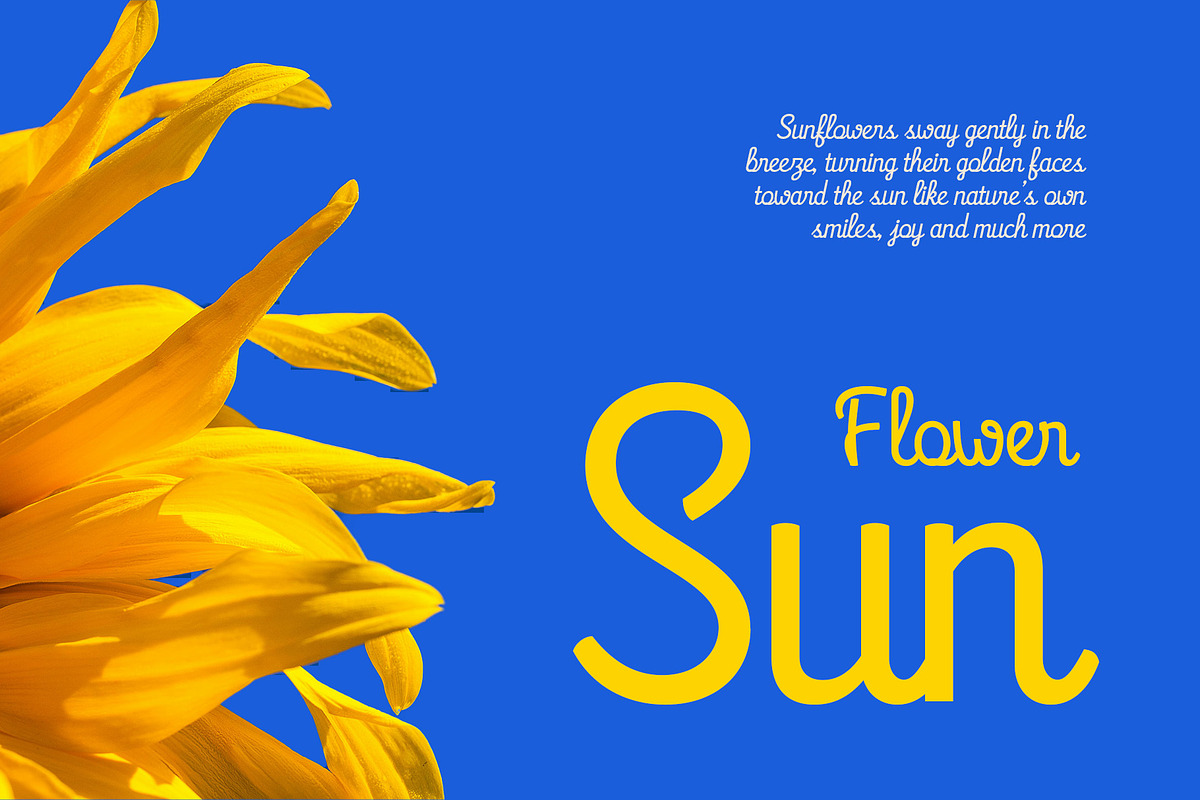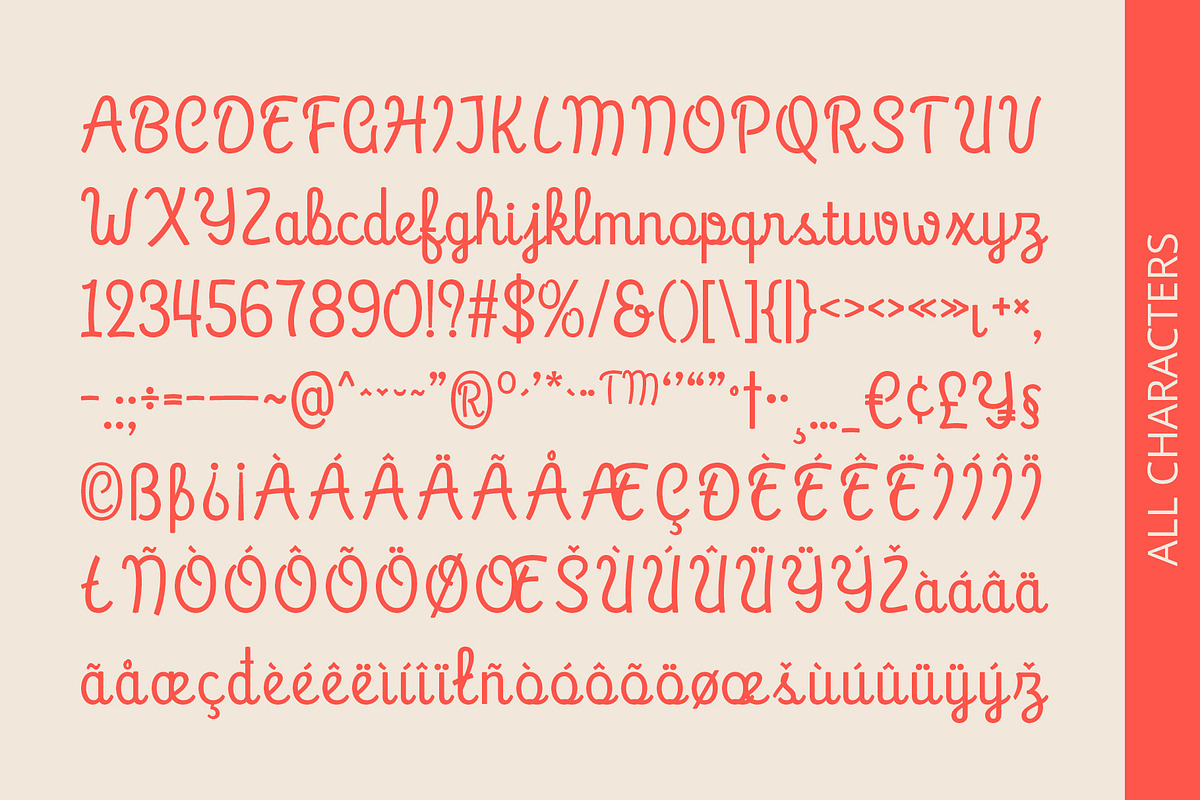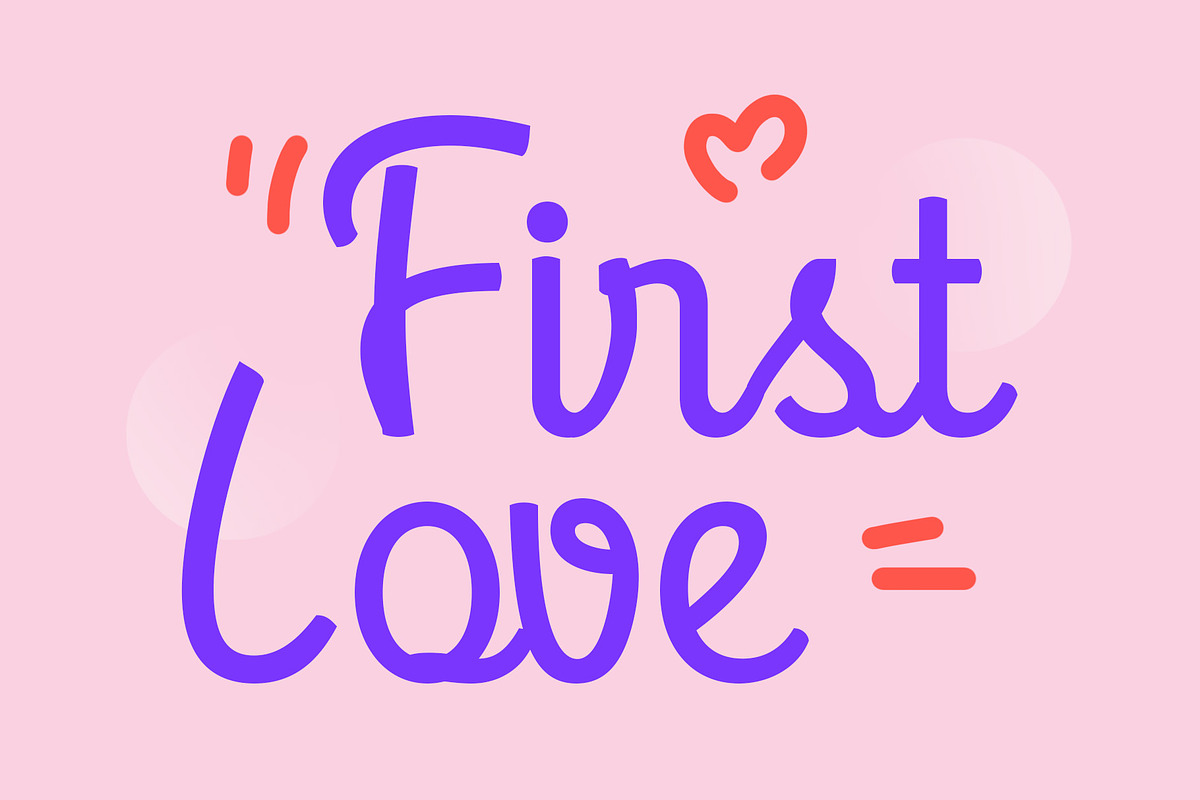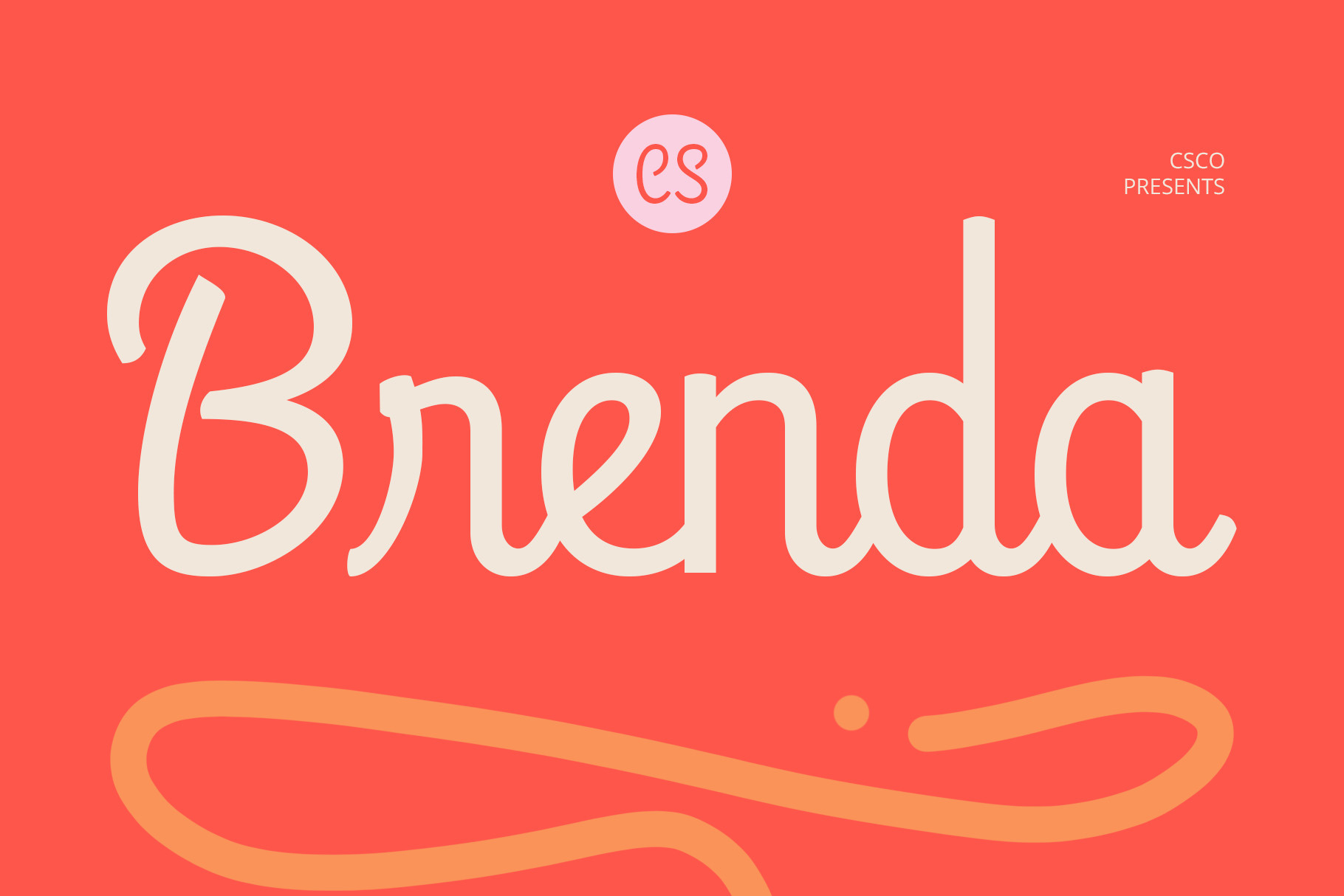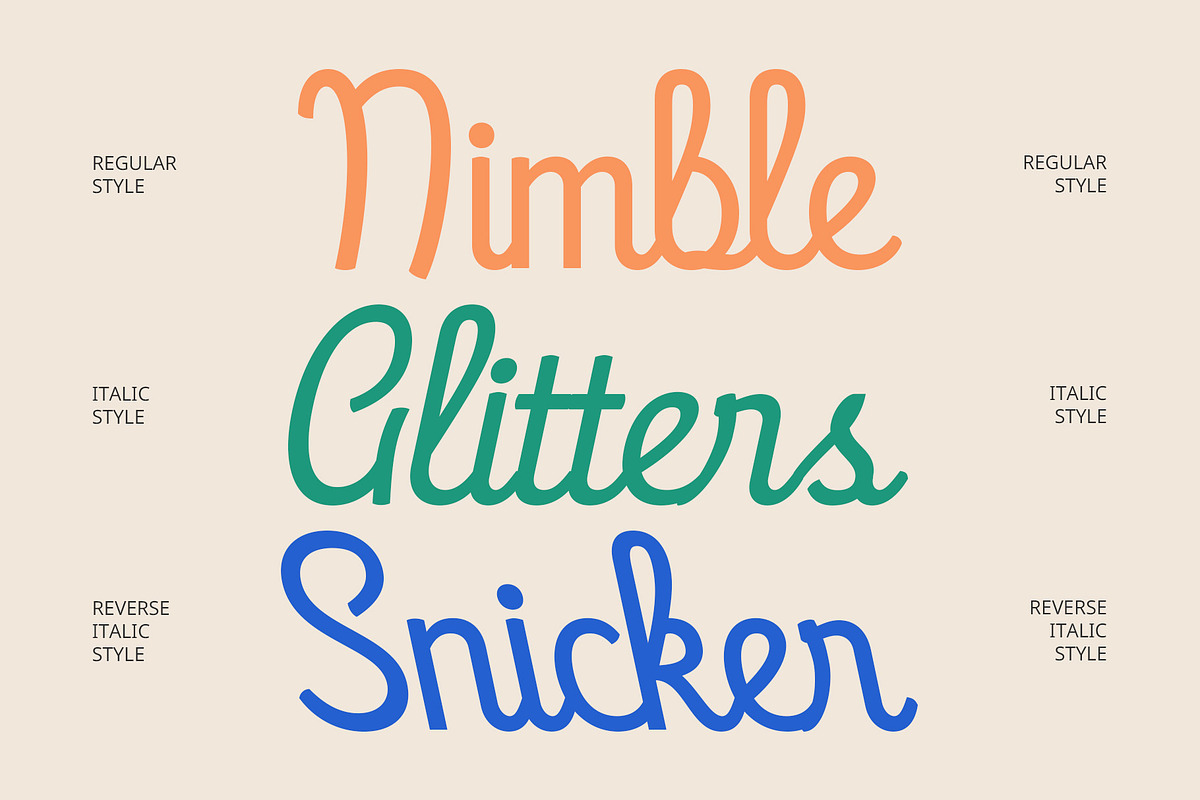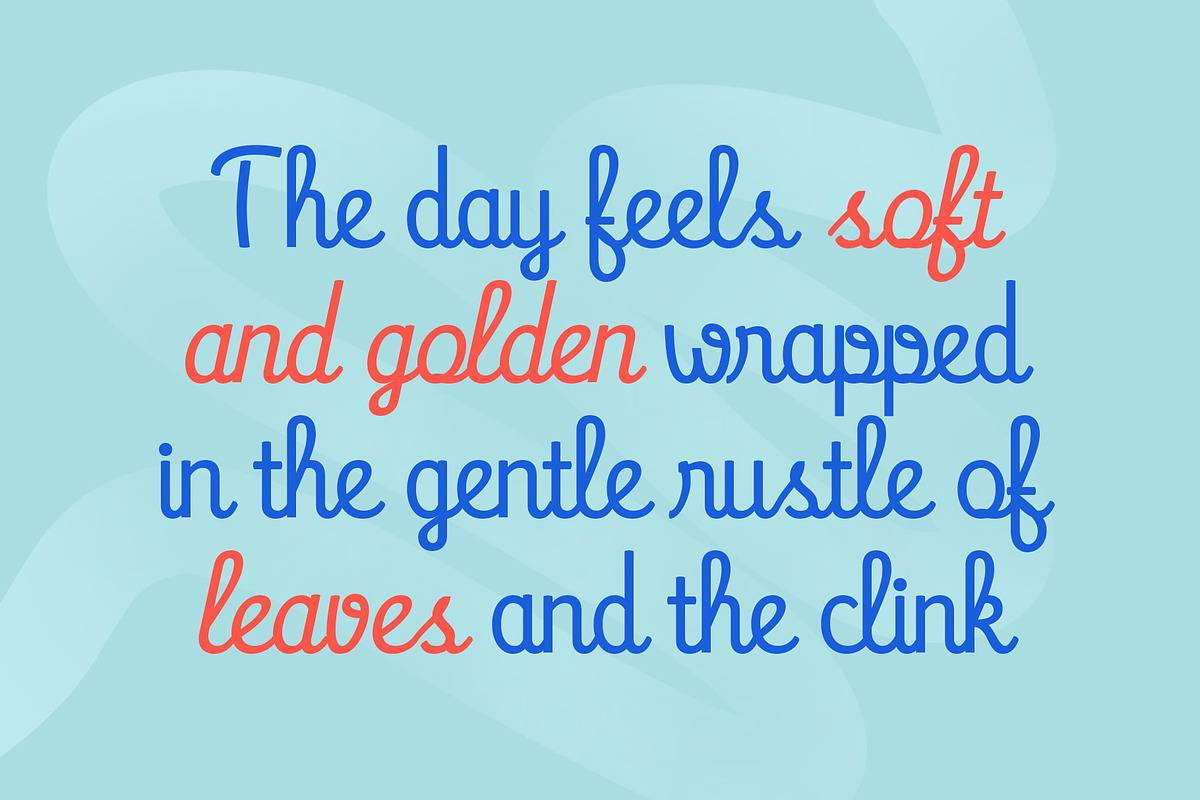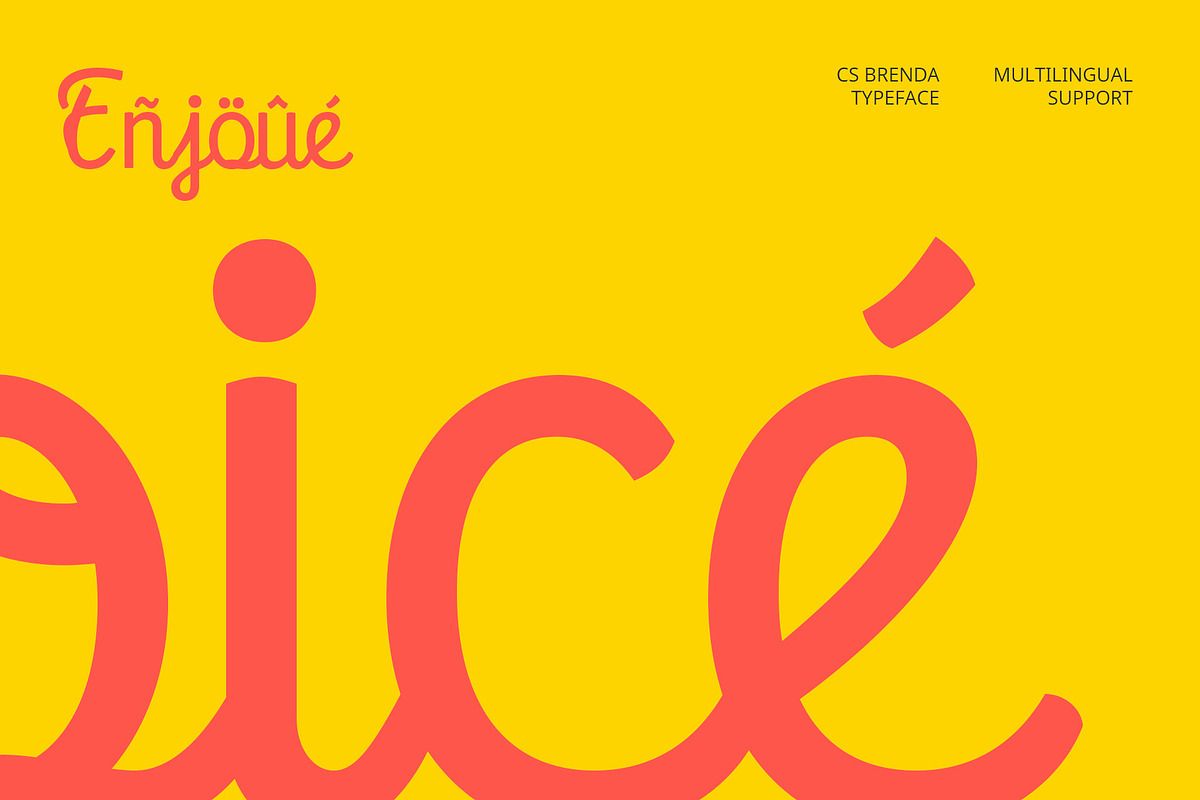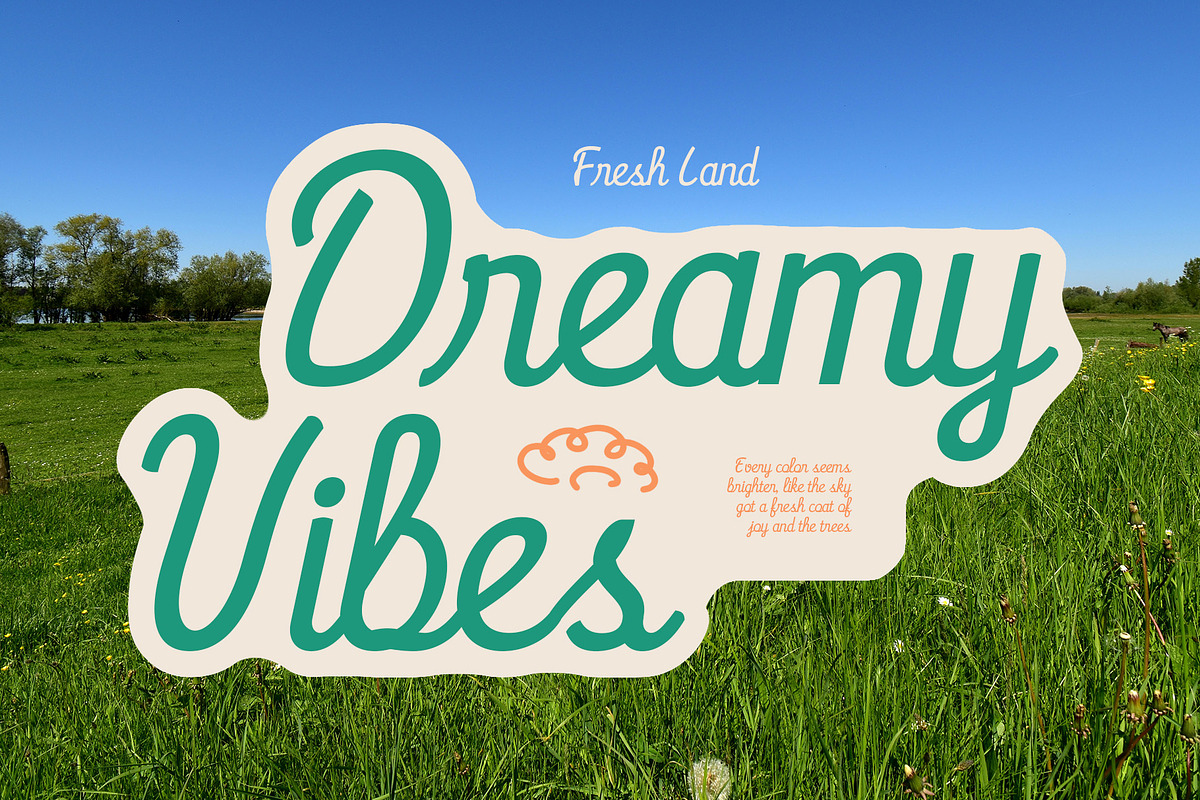
CS Brenda – Script Font
CS Brenda – Script Font: Where Minimalism Meets Sweet Elegance
Contemporary Minimalist Style CS Brenda is a modern script font that embraces a clean, minimalist handwritten style. Each character flows smoothly, offering a refined and polished look while retaining the charm of personal handwriting. Its simplicity enhances its elegance, making it ideal for designers who value both clarity and beauty.
Beautiful and Aesthetic Flow Designed with soft curves and graceful movements, CS Brenda delivers a sweet and cute aesthetic. The font captures a balance between playful and professional, perfect for creative projects that need to radiate charm, femininity, and sophistication. The gentle rhythm of its strokes creates a visually pleasing, harmonious text layout.
Perfect for Trendy and Feminine Designs Whether you’re designing for beauty products, café menus, wedding invitations, or social media graphics, CS Brenda brings a touch of elegance and trendiness. It adds a personal and approachable vibe that works well in both digital and printed formats.
Versatile and Stylish Across Media CS Brenda is highly adaptable for a variety of uses, from branding and packaging to lifestyle blogs and aesthetic quotes. Its neat structure and modern flow ensure it stands out while staying subtle, making it an excellent choice for any designer aiming to express elegance with personality.
- CS Brenda Regular
- CS Brenda Italic
- CS Brenda Reverse Italic